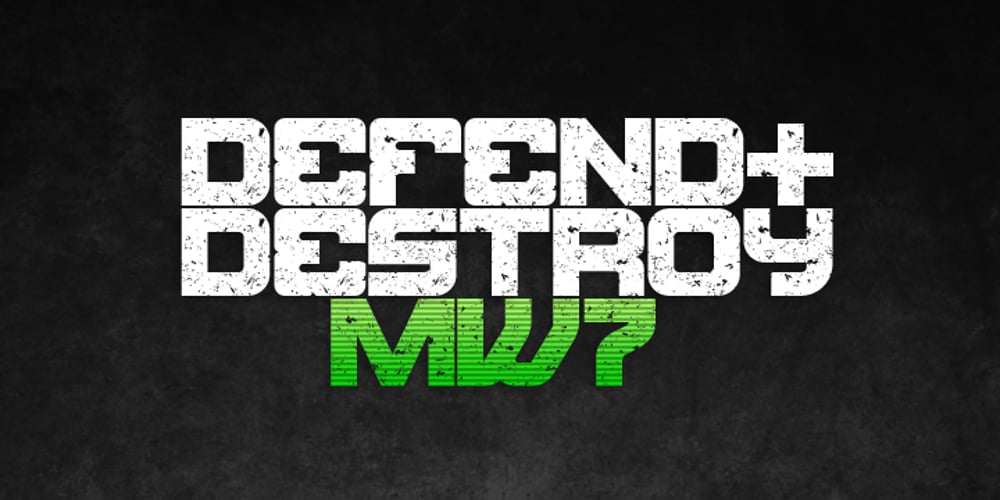
Kono
Kono font
Kono Font Family was designed by Alex Haigh and published by HyperFluro. Kono contains 1 styles and family package options. Kono is a font straight from the modern, gritty, warfare computer game genre. Rough and ready, with letters that double as numbers and look fit to be sprayed on a bunker wall, Kono brings you a bleak example of the near-future, where pragmatism rules out over artistry. Kono itself, ironically, is stylistically crafted to capture this feeling, carefully selecting the perfect mix between flat, straight lines and rounded corners, using wide, squat characters to mimic practical architectural styles. Kono is great for capturing a bleak but somewhat heroic attitude, whether you want to use that to encourage optimism or advertise pessimism.